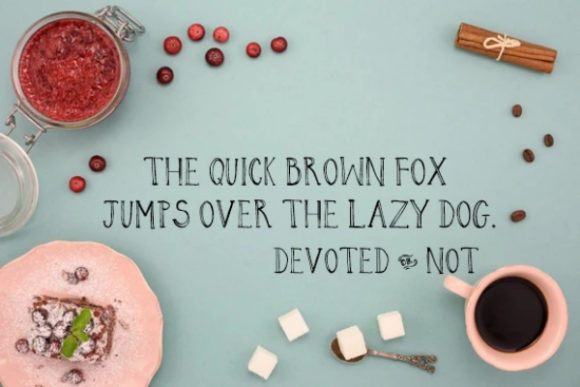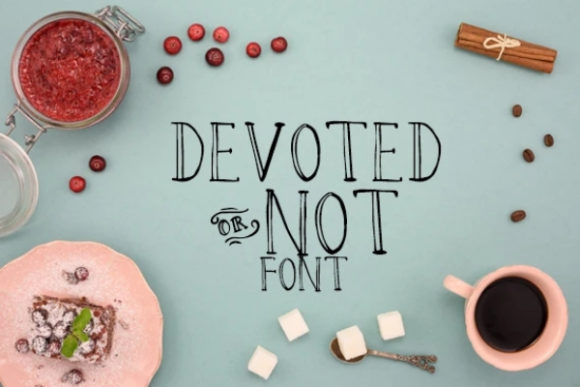
Introducing Devoted Font: Elevate Your Designs with Luxurious Serif Elegance
In the world of typography, a font can make or break a design project. If you’re a designer, crafty DIY enthusiast, or social media influencer, you’re likely on the hunt for the perfect typeface to elevate your creative vision. Look no further than Devoted, a luxurious serif font that brings a touch of classic sophistication to any design.
Inspired by Classic Typography
Devoted Font draws inspiration from the timeless world of classic typography. With its roots in traditional serif fonts, Devoted has been carefully crafted to bring a sense of elegance and refinement to your designs. Whether you’re working on a branding project, social media graphics, or a DIY craft, Devoted’s sophisticated style is sure to impress.
Unique Style for Creative Projects
What sets Devoted apart from other serif fonts is its unique style. While it pays homage to classic typography, Devoted brings its own distinctive flair to the table. With its subtle nuances and refined lines, this font is perfect for designers and crafters looking to add a touch of personality to their work.
Perfect for Instagram and Social Media
In today’s digital age, having a strong visual presence on social media is crucial. Devoted Font is an excellent choice for Instagram and other social media platforms, where typography plays a vital role in grabbing attention and conveying your message. Whether you’re a fashion brand, lifestyle influencer, or artist, Devoted’s luxurious style will help your content stand out from the crowd.
Calligraphy Scripts for DIY Projects
For crafty DIY enthusiasts, Devoted Font offers a world of creative possibilities. Use it to create beautiful calligraphy scripts for handmade cards, gift tags, or other paper crafts. With Devoted, you can add a touch of elegance and sophistication to your DIY projects, making them perfect for special occasions or everyday use.
Transform Your Creative Ideas into Art
Devoted Font is more than just a typeface – it’s a tool for creative expression. With its luxurious serif style and unique flair, Devoted has the power to transform your ideas into true works of art. Whether you’re a seasoned designer or a crafty DIY enthusiast, Devoted is the perfect choice for anyone looking to elevate their designs and bring their creative vision to life.
Key Features of Devoted Font
• Luxurious serif font with a classic feel
• Unique style with subtle nuances and refined lines
• Perfect for designers, crafters, and social media influencers
• Suitable for a wide range of creative projects, from branding to DIY crafts